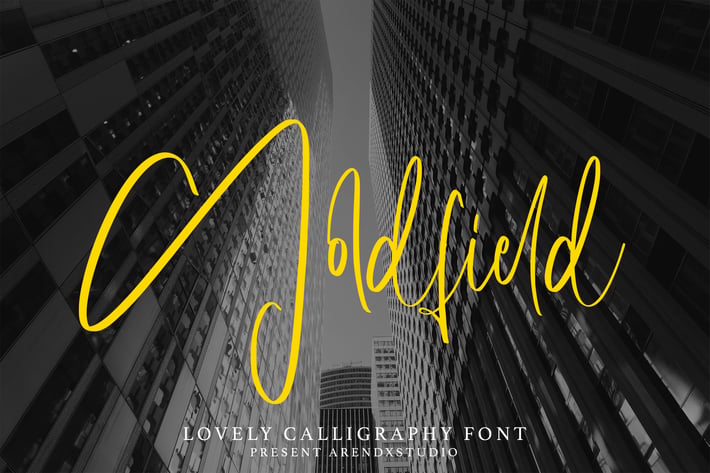
Goldfield - Lovely Calligraphy Font
Goldfield - Lovely Calligraphy Font that has a distinctive character that is very thick and elegant to use
Goldfield is a relaxed and flowing Handwritten Font. Incredibly versatile, this font fits a wide pool of designs, elevating them to the highest levels. Add this font to your favorite creative ideas and notice how it makes them come alive!